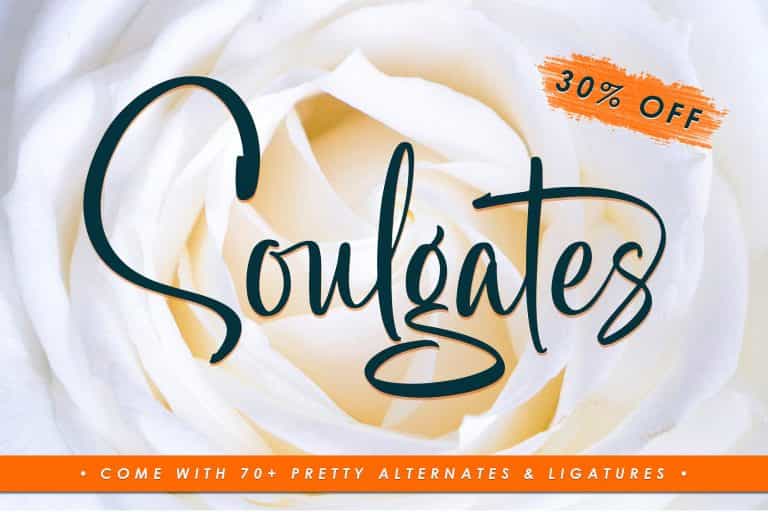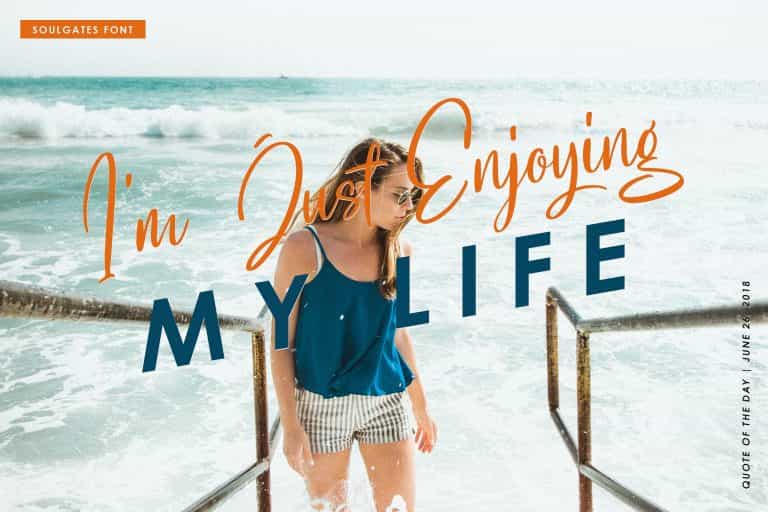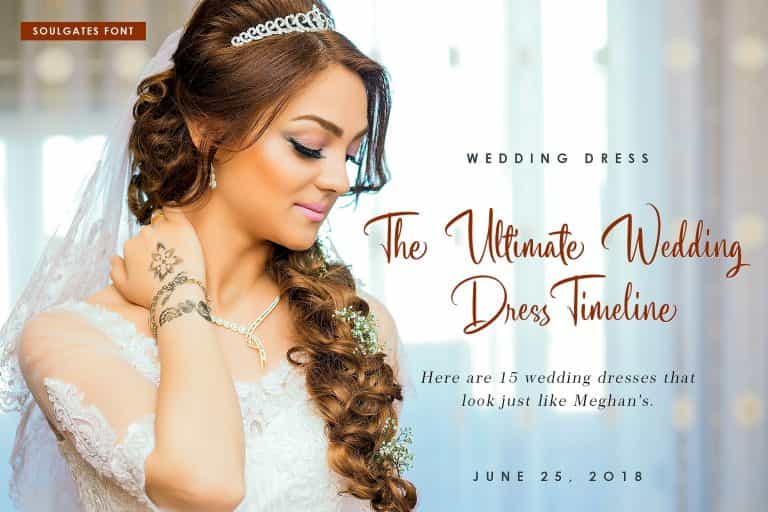
Introducing Soulgates Font. Soulgates is a brush script typeface that each and every letter has wonderful character alternates. This font is loaded with 70+ Ligatures, Contextual alternates and Stylistic alternates. A classy font that will make your projects look modern and one-of-a-kind.